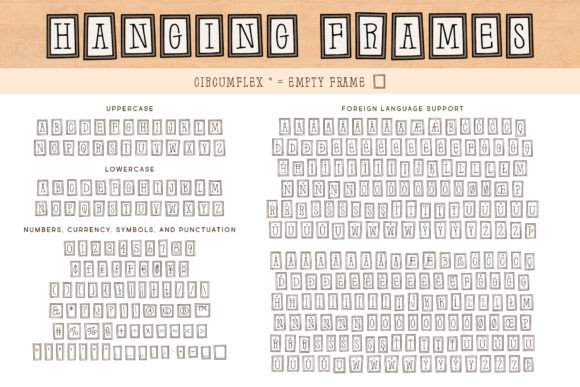
Hanging Frames Font: Elevate Your Designs with Elegance and Sophistication
In the world of typography, fonts play a crucial role in conveying the tone and personality of a design. For those seeking to add a touch of elegance and sophistication to their projects, the Hanging Frames Font is an exceptional choice. This decorative font features letters in frames, creating a unique and eye-catching display that is sure to captivate audiences.
The Unique Charm of Hanging Frames Font
Hanging Frames Font stands out with its ornate and intricate details, giving it a luxurious feel that is perfect for high-end designs. The font’s distinctive feature is its use of frames around each letter, which not only adds to its decorative appeal but also provides a sense of exclusivity and refinement. Whether you’re designing wedding invitations, posters, or branding materials, Hanging Frames Font can elevate your work to new heights.
Perfect for Wedding Invitations and Formal Events
Wedding planners, designers, and crafters often find themselves in search of fonts that can convey the romance and sophistication of a special day. Hanging Frames Font, with its elegant and ornate design, is an ideal choice for wedding invitations, save-the-date cards, and other formal event materials. The font’s classic charm ensures that your designs will never go out of style, making it a valuable addition to your typographic collection.
Enhance Your Brand with Hanging Frames Font
For businesses looking to establish a premium brand image, typography is a critical element. Hanging Frames Font offers a unique opportunity to infuse your brand’s visual identity with sophistication and luxury. From logos and business cards to packaging and advertising materials, this font can help you create a cohesive and high-end brand image that resonates with your target audience.
One of the significant advantages of Hanging Frames Font is its versatility. Designers can use it in a variety of projects, from digital designs like social media graphics and website headers to print materials such as brochures, flyers, and posters. The font’s adaptability makes it a valuable tool for creatives who work on diverse projects and need a reliable, high-quality font.
Tips for Using Hanging Frames Font Effectively
• Pair with Simple Fonts: For optimal readability, pair Hanging Frames Font with simpler fonts for body text. This contrast ensures that your message is clear while maintaining visual interest.
• Experiment with Colors: While the font itself is a statement piece, experimenting with different colors can further enhance its beauty. Metallic colors, pastels, or rich jewel tones can complement its ornate details.
• Use on High-Quality Backgrounds: To truly showcase the intricacy of Hanging Frames Font, use it on high-quality backgrounds that complement its elegance. Avoid busy patterns that might detract from the font’s beauty.
Font Name Hanging Frames Font
Hanging Frames Font is more than just a decorative font; it’s a design statement. Its unique blend of elegance, sophistication, and playfulness makes it an excellent choice for designers and crafters looking to elevate their projects. Whether you’re working on wedding invitations, branding materials, or any other design project that calls for a touch of luxury, Hanging Frames Font is sure to impress. With its versatility and timeless appeal, this font is a valuable addition to any creative’s toolkit.
Embrace the beauty of Hanging Frames Font in your next project and discover how it can transform your designs into stunning works of art.